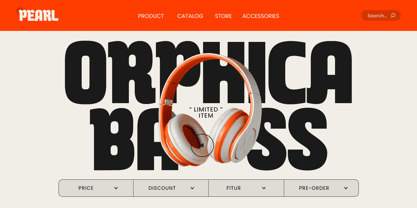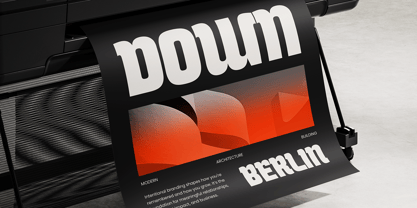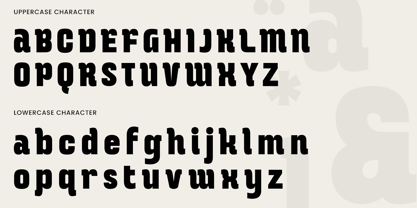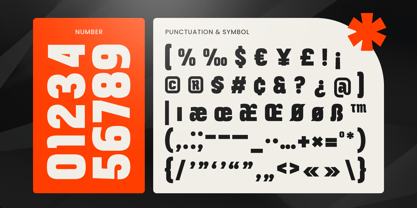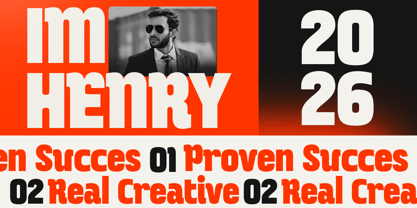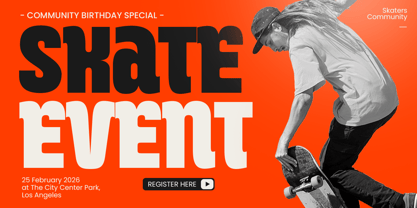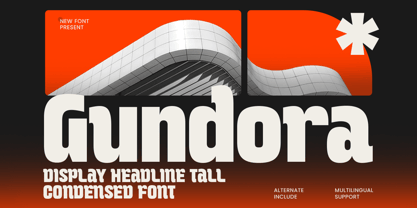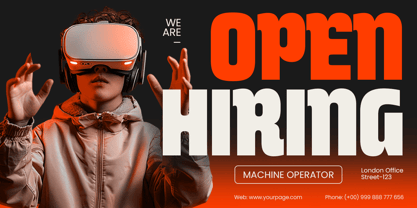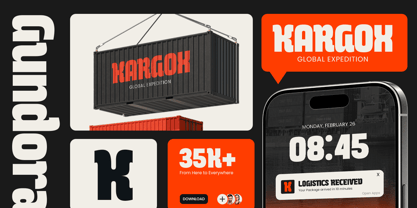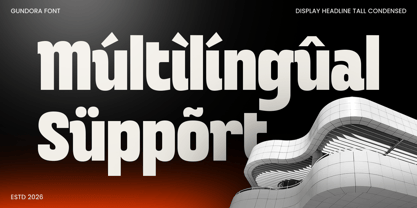
Gundora
The Gundora Font Family was designed by Kusnidah Marpuah and published by Dareco Studio. Gundora contains 1 styles. More about this family
Gundora – Headline Tall Condensed Font is a modern display typeface crafted to deliver strong vertical presence and impactful headline typography. Inspired by editorial design trends and contemporary condensed typography, Gundora is built for layouts that demand both efficiency and bold visual impact.
With its tall proportions, narrow structure, and clean modern letterforms, Gundora allows designers to create striking headlines while maintaining excellent readability. The vertical emphasis gives the typeface a distinctive personality, making it ideal for modern editorial and branding compositions.
Gundora is Perfect For
• Editorial headlines and magazine layouts
• Posters and advertising visuals
• Modern branding and logo systems
• Website headers and landing pages
• Marketing campaigns and promotional graphics
• Contemporary design projects requiring bold typography
Whether you are designing a bold editorial layout, creating modern branding visuals, or building a high-impact headline system, Gundora delivers the vertical strength and contemporary style needed to make your typography stand out.